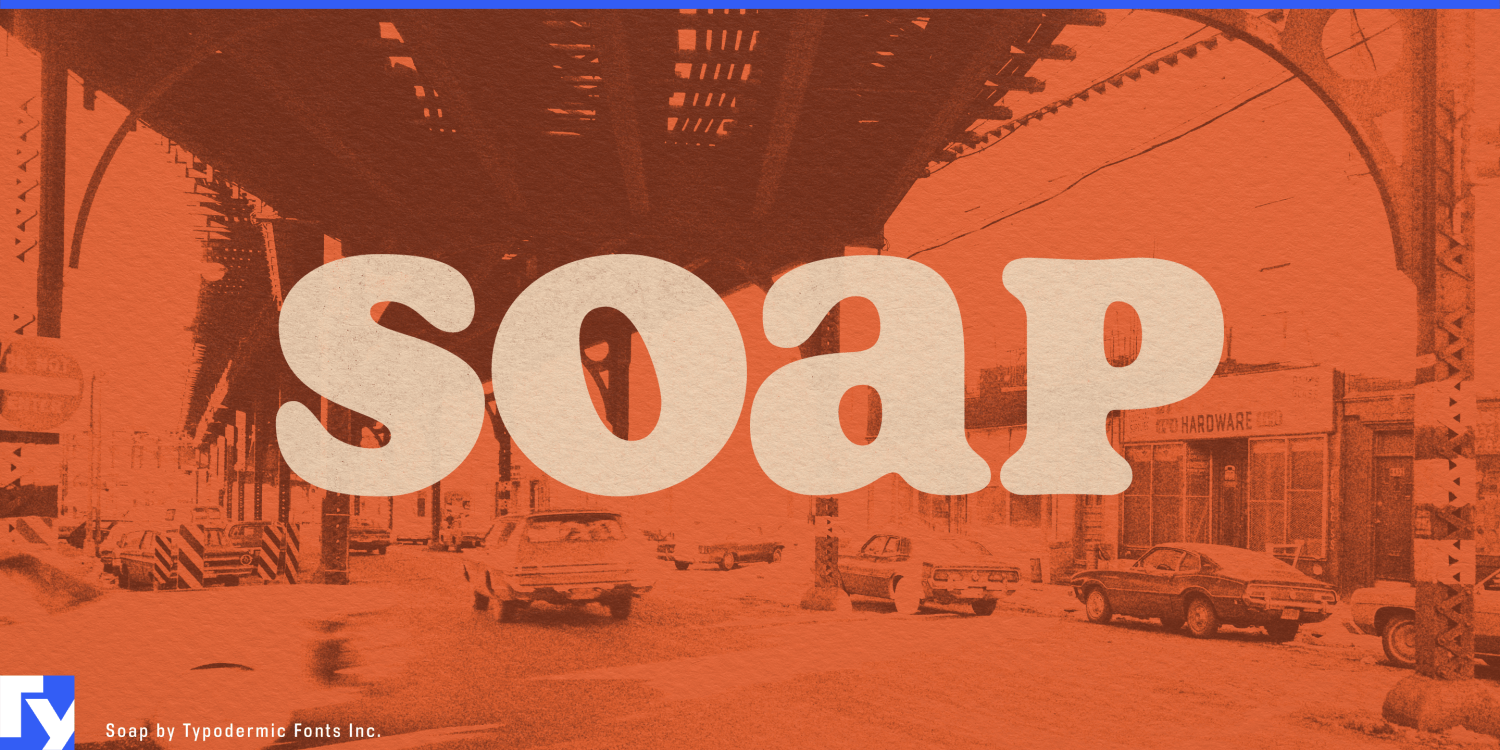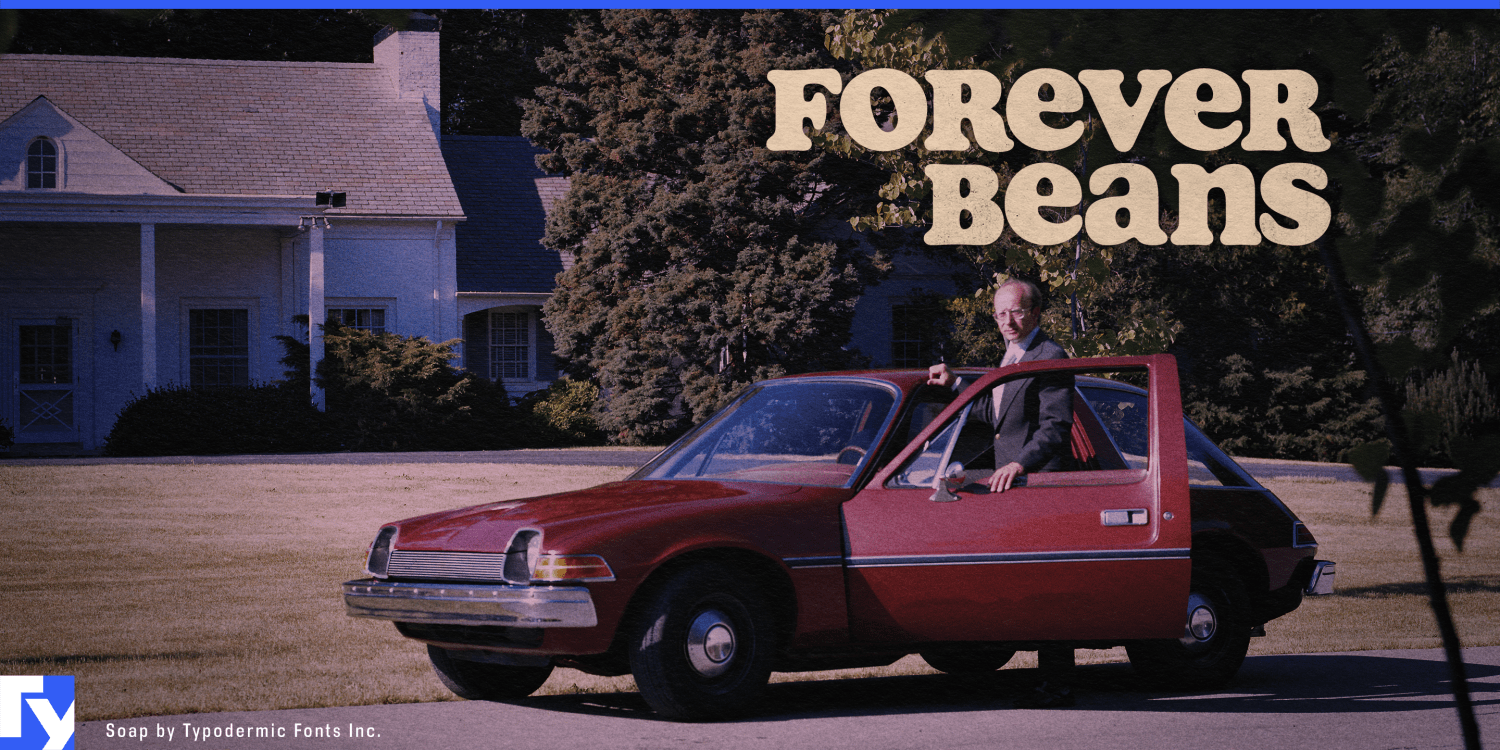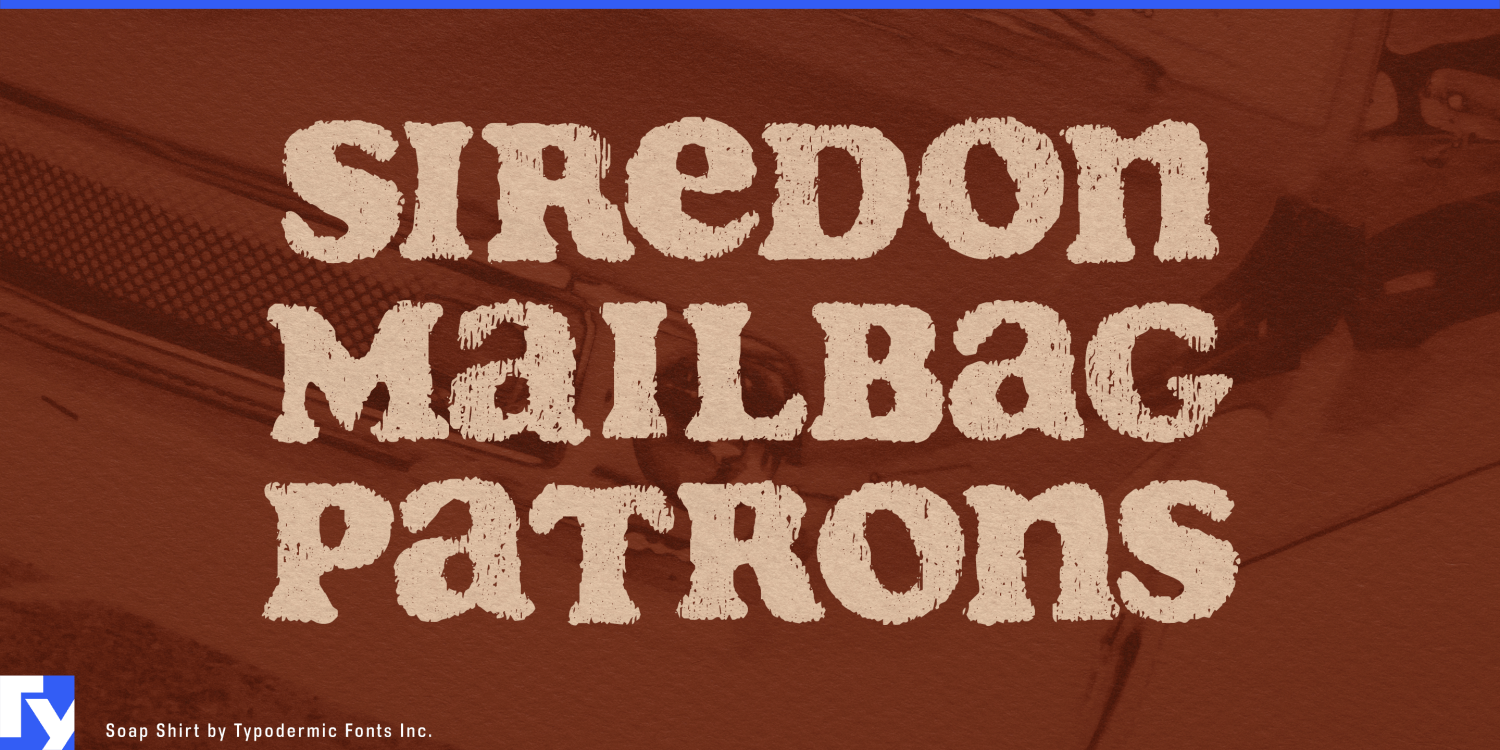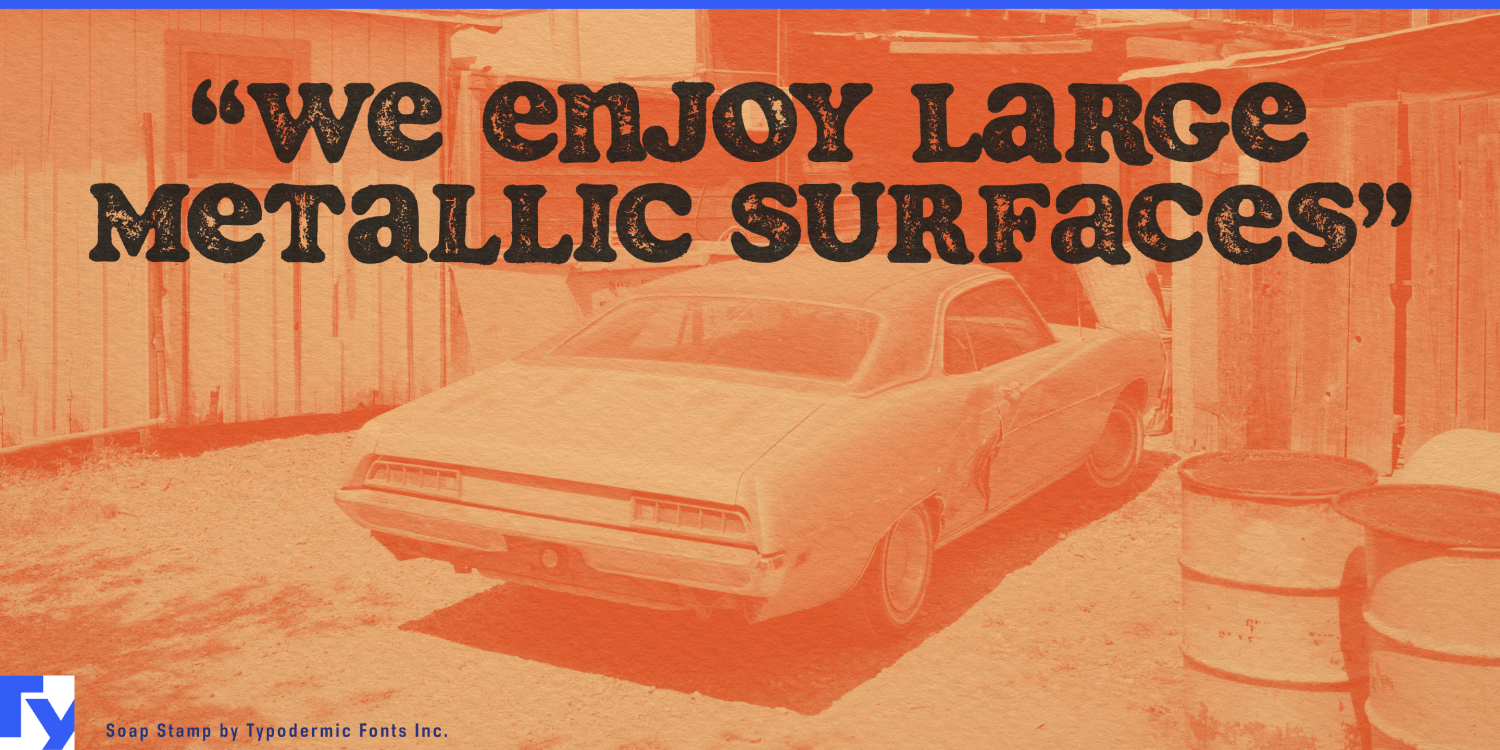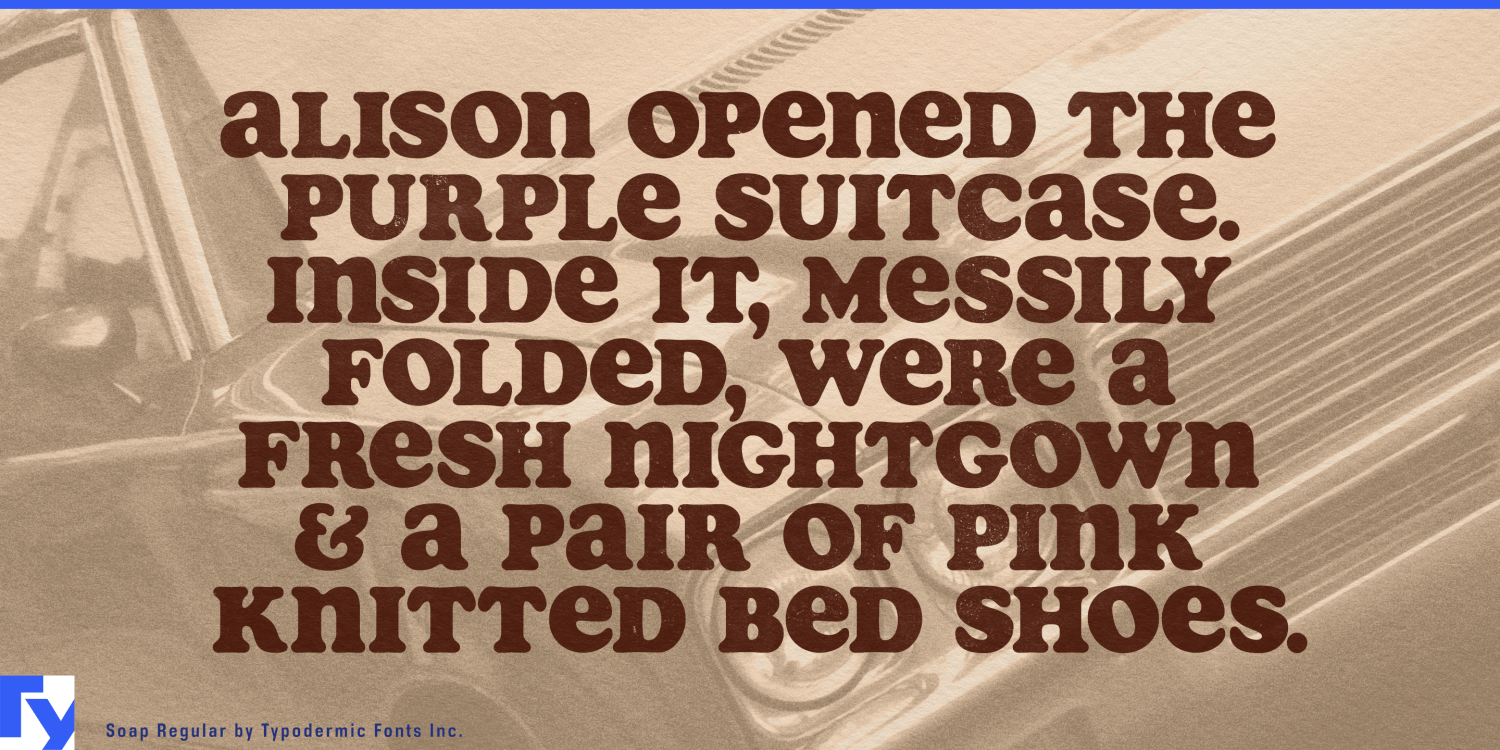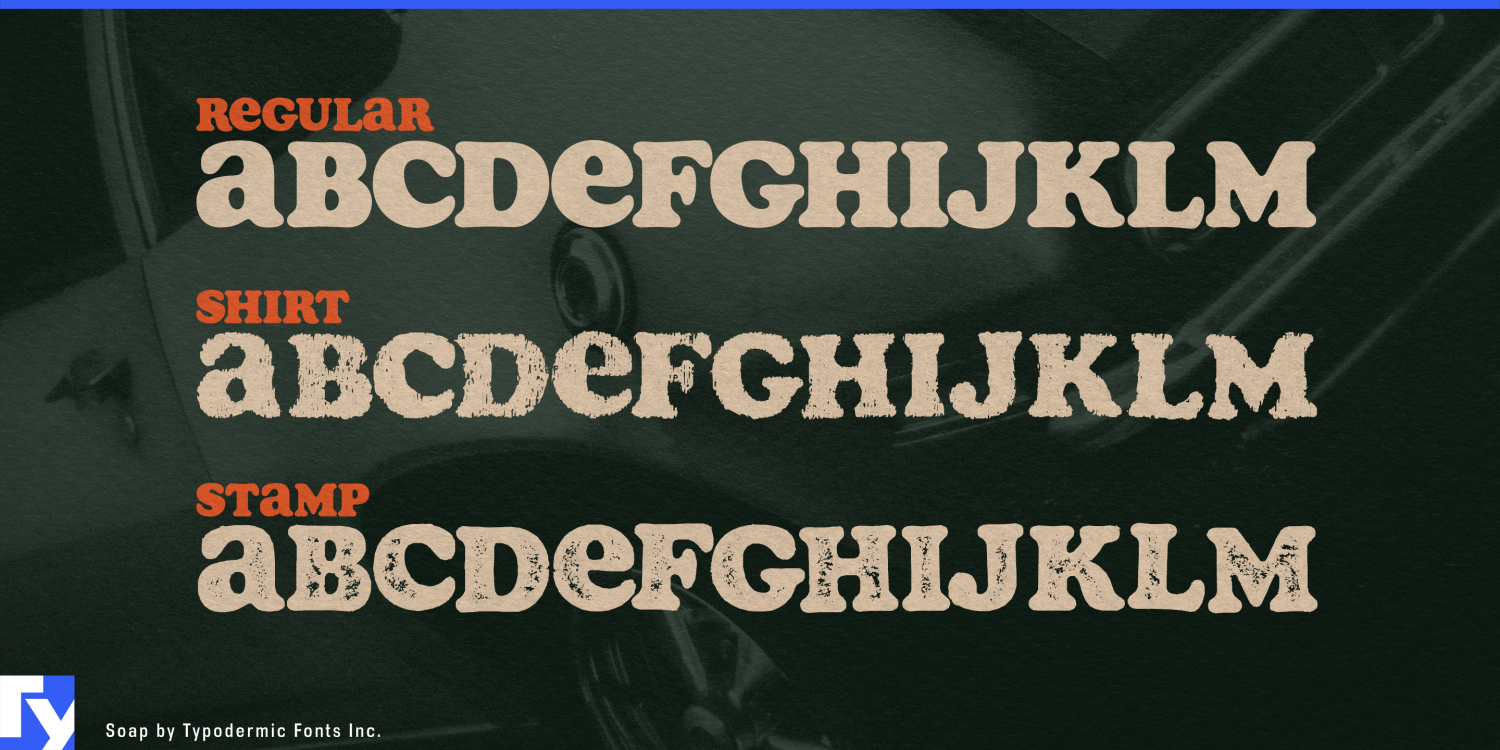
Soap
Font Family by Typodermic
Soap starts with a simple question: how much smoother could Cooper Black get? The familiar heavy curves are softened, swollen, and relaxed until the letters seem almost melted together. Soap takes the already mellow side of Cooper Black and exaggerates it, pushing its 1970s associations further into soft shapes, flowing joins, and an easygoing unicase rhythm.
That makes Soap especially convincing around food with some physical softness or indulgence of its own. Ice cream, chocolate, pudding, cookies, doughnuts, cereal, peanut butter, milkshakes, and snack foods can use its heavy curves to make product names and flavours feel almost edible. It suits contemporary packaging that borrows from colourful 1970s supermarket graphics without reproducing a particular old label. Soap brings the period flavour through the letterforms themselves, so the surrounding design does not need to pile on retro effects.
There is another seventies food world on the healthier side of the aisle. Granola, whole-grain bread, herbal tea, natural snacks, botanical drinks, and co-op groceries can draw on the era when health-food shops, counterculture graphics, and commercial packaging shared a surprisingly similar typographic vocabulary. Soap can feel homespun and mellow without imitating hand lettering or relying on fake woodcut textures.
Music is another natural home, particularly the softer end of 1970s culture. Soul, funk, soft rock, singer-songwriter releases, mellow psychedelia, reissues, record-store graphics, and vintage music events can use Soap for album titles, artist names, posters, and merchandise. Its forms carry plenty of period atmosphere before a designer adds a rainbow, sunburst, lava lamp, or any of the usual props.
The same quality works for businesses that deliberately inhabit an older, less polished consumer world: record shops, vintage clothing stores, second-hand furniture, ceramics, plant shops, retro motels, casual cafés, herbal products, and relaxed lifestyle brands. Soap is familiar enough to feel immediately readable, but its exaggerated smoothness keeps it from simply looking like Cooper Black pulled straight from the type menu.
The unicase construction adds to that looseness. Capitals and lowercase forms mingle at a similar scale, creating chunky display copy with a rhythm less formal than conventional mixed case. Flavour names, shop signs, record titles, package headings, short slogans, and several lines of large copy can all make use of its rolling texture.
Distressed versions push the same design into more physical territory, suggesting an old T-shirt, faded gig poster, stamped package, thrift-store graphic, or weathered piece of printed ephemera. The clean version keeps the seventies softness without the wear, for nostalgia that needs to feel freshly printed rather than rediscovered in a basement.
Cooper Black made heavy serif lettering famously friendly. Soap takes that softness further, rounds off whatever resistance remains, and lets the seventies linger a little longer.